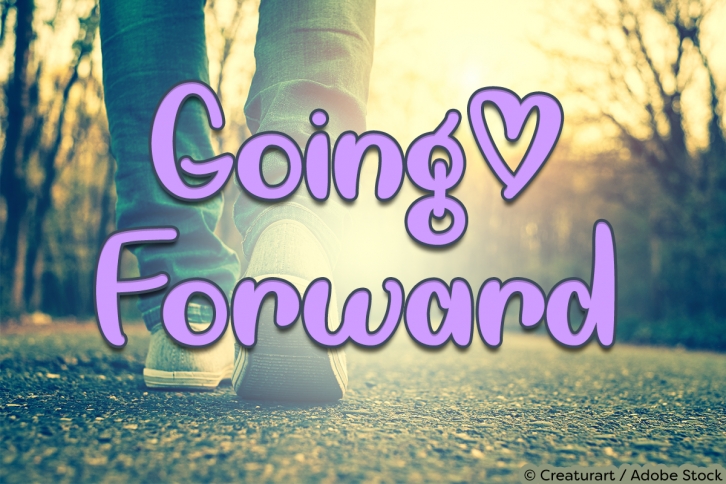
Going Forward is a beautiful font that was designed by Misti Fonts. It's a great choice for designers and creatives who need such a font. It was released on March 18, 2019 and the file size is 10.21 MB. Going Forward may give a more youthful, expressive and casual look to your project. It is a very beautiful, refined, elegant, and high-quality font.